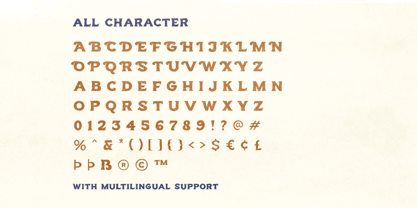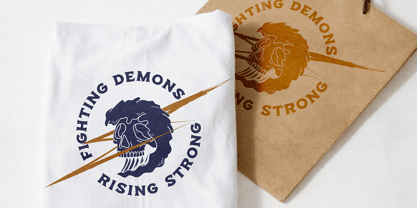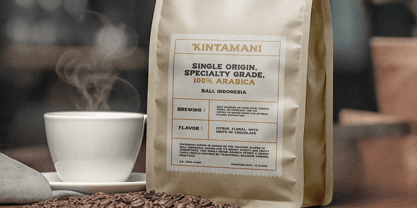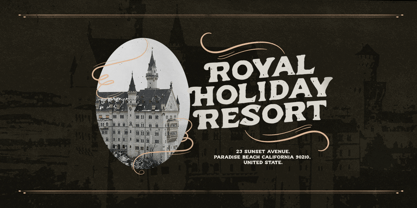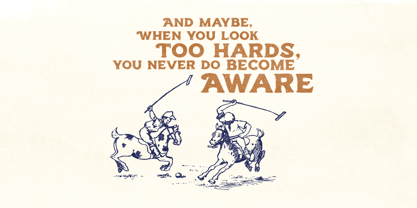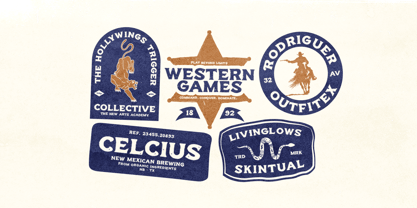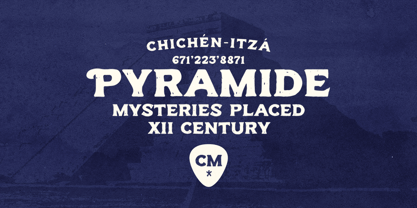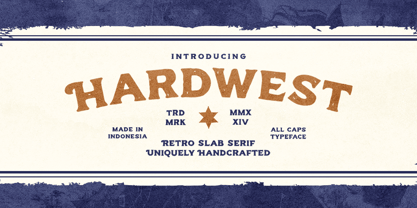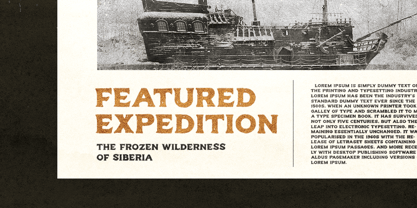
Hardwest
The Hardwest Font Family was designed by Sarid Ezra, Dzikrul Aulia and published by Bale Type. Hardwest contains 1 styles. More about this family
Hardwest is a retro slab serif with rough and handcrafted looks. You can use this fonts for many occasions such as logotype, quotes or any projects that require hipster and cowboy vibes. With different uppercase and lowercase, you can choose what you want or combine them in a word. This fonts also support multi language!